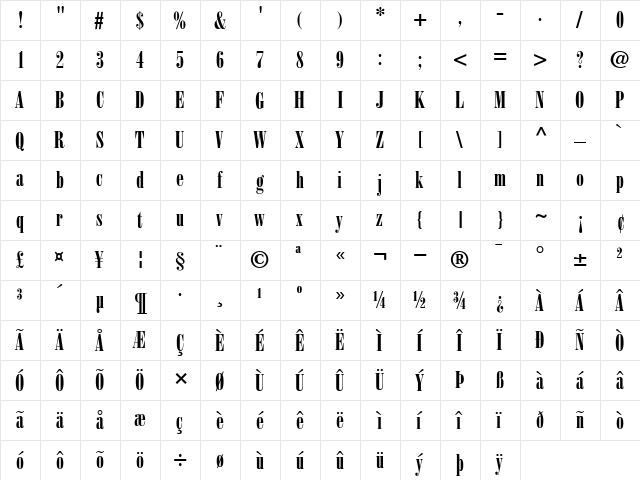
BodoniPoster-Compressed Roman
Design Context for BodoniPoster-Compressed Typeface
BodoniPoster-Compressed offers clean, dependable letterforms without strong stylistic allegiance, making it a practical choice for designers who need flexibility.